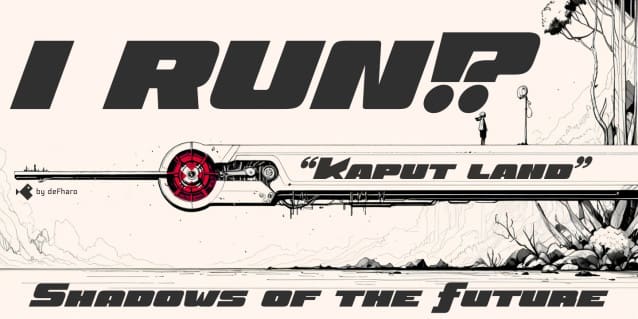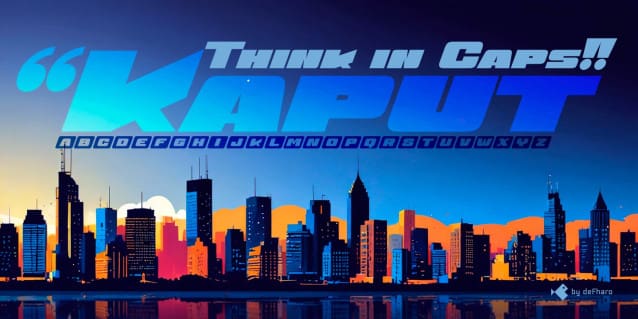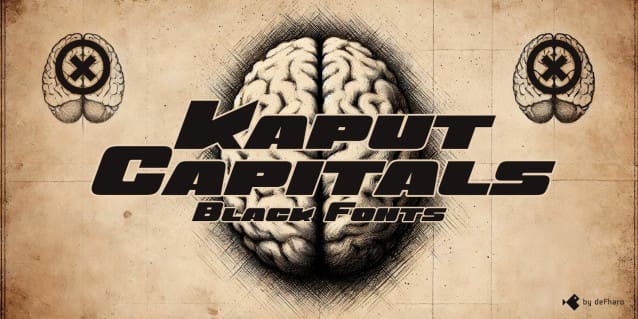
Kaput Black Italic Font
Kaput Black Italic is a unique sans serif typeface with a rounded finish on the outside, and combining curves with sharp angles on the inside, heavy and made in capitals, it comes to create great titles and high-impact visual communication.
Kaput is designed with a perfect balance between strength and sophistication, it is bold, semi-expanded and spectacularly legible, the thick lines not only catch the eye, but also provide true harmony, thanks to the meticulous work of metrics and kerning. The 20-degree tilt of this version adds a touch of dynamism and modernity.
Letter Variations: Capitals, Small Caps and Petite Caps, perfect for adapting each design to a unique expression.
Advanced OpenType Features: Various alternative letter and number sets, dynamic fractions, mathematical signs, arrows, etc., opening up endless creative possibilities.
Language Support: Designed to cover languages ​​with Latin Extended-A support, it is a flexible typeface that adapts to multiple contexts.